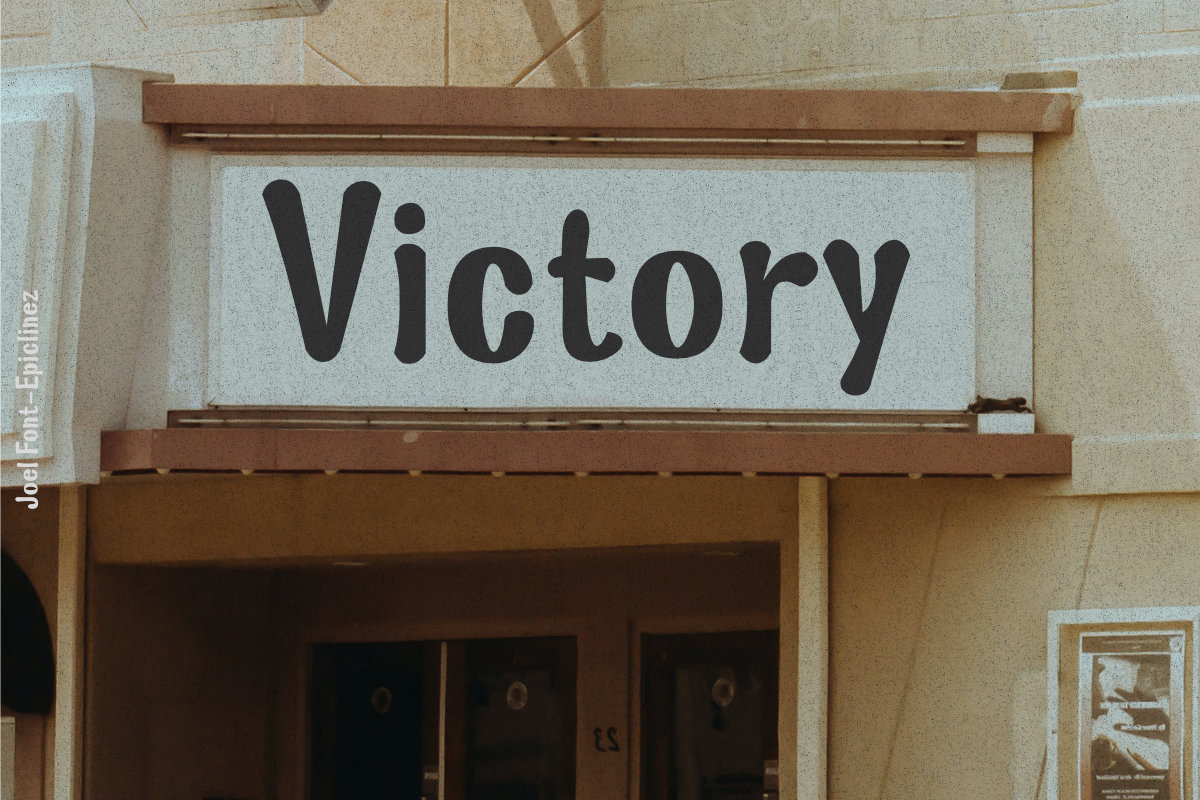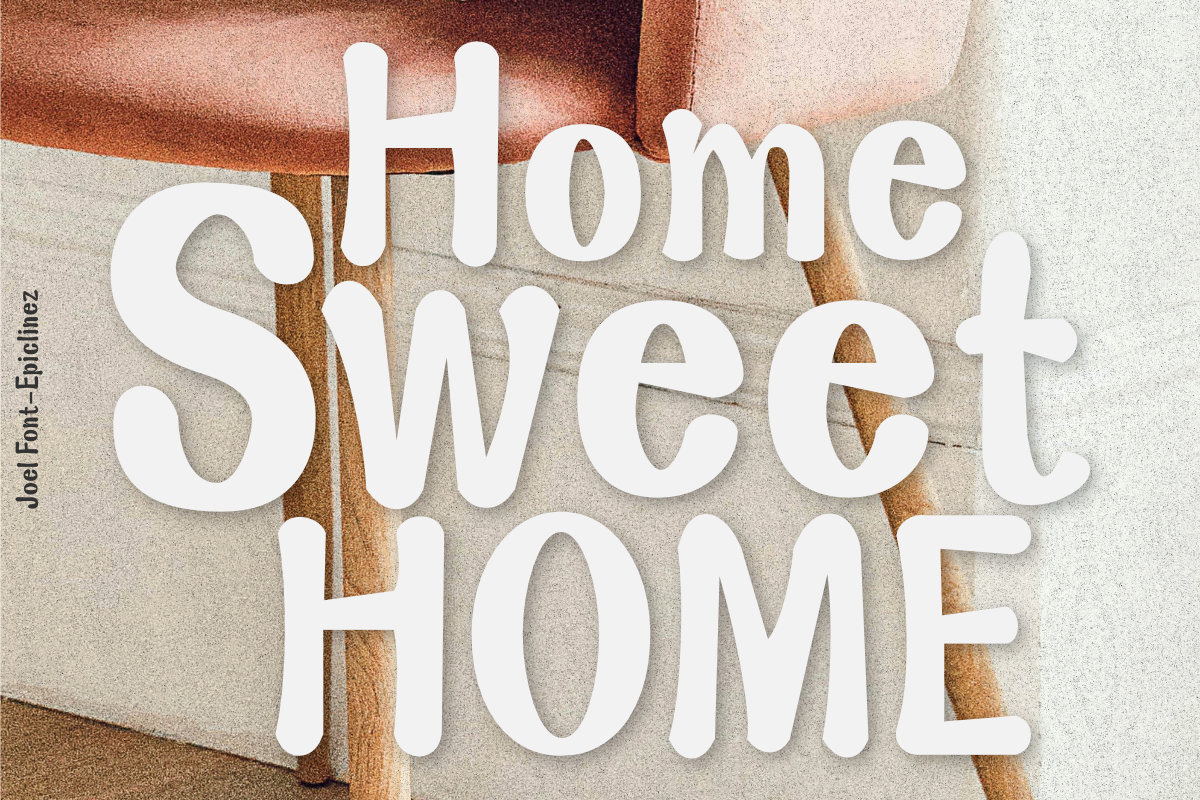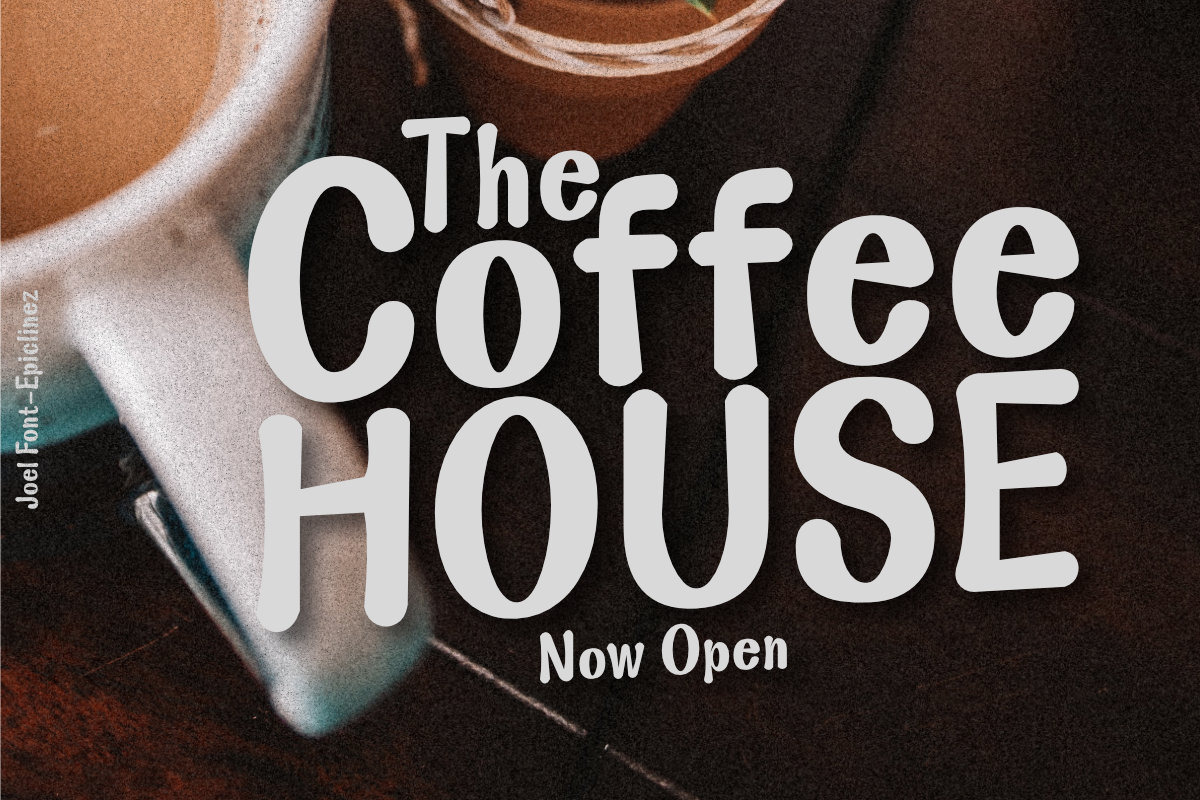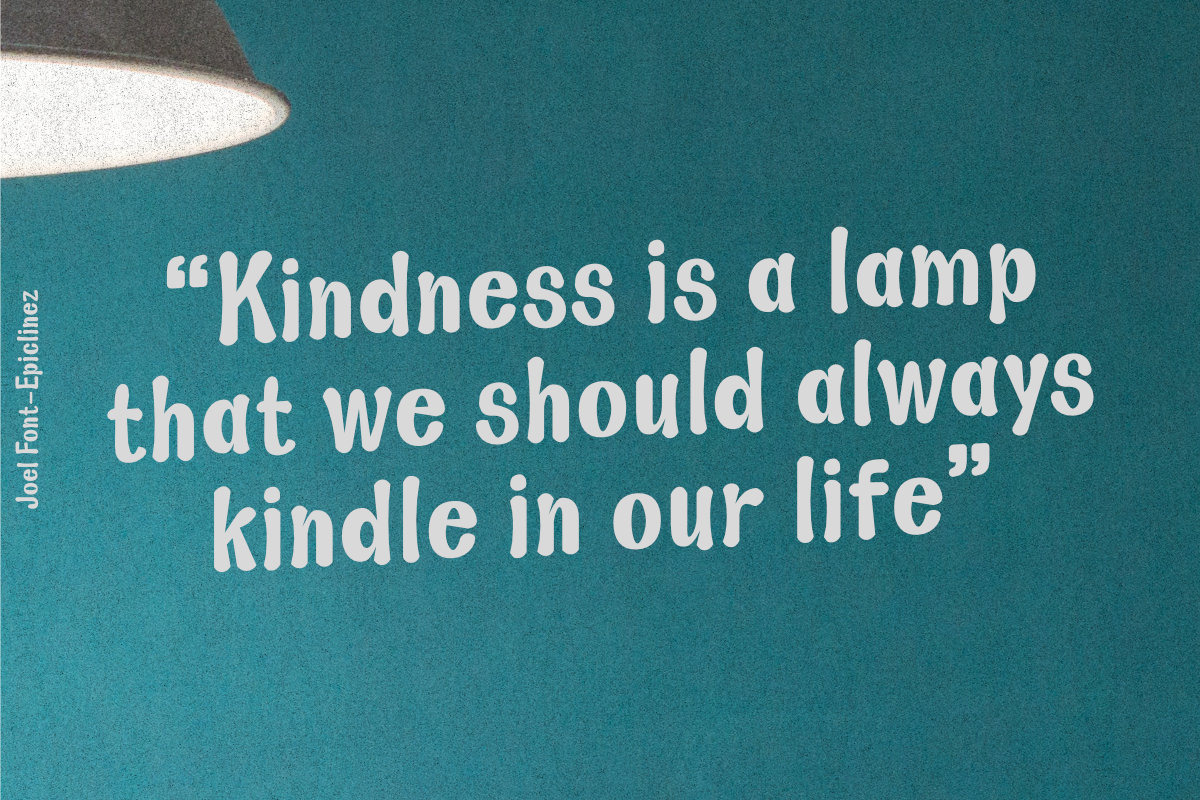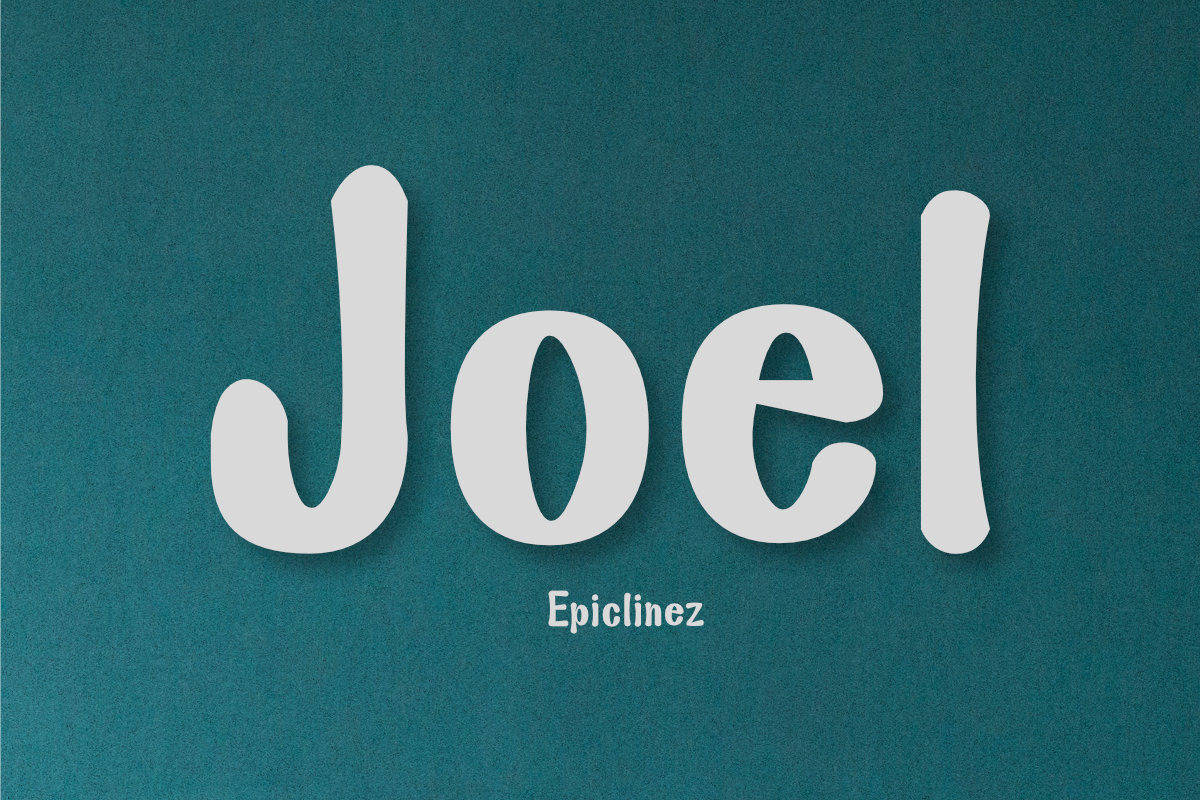
Joel - Display Font
Introducing Joel, a bold display font with a playful style. Suitable for headlines, branding, logotypes, or any other creative project. Joel is here to make your message stand out from the crowd.
- Standard Latin
- Numbers, symbols, and punctuations
- Multilingual Support.